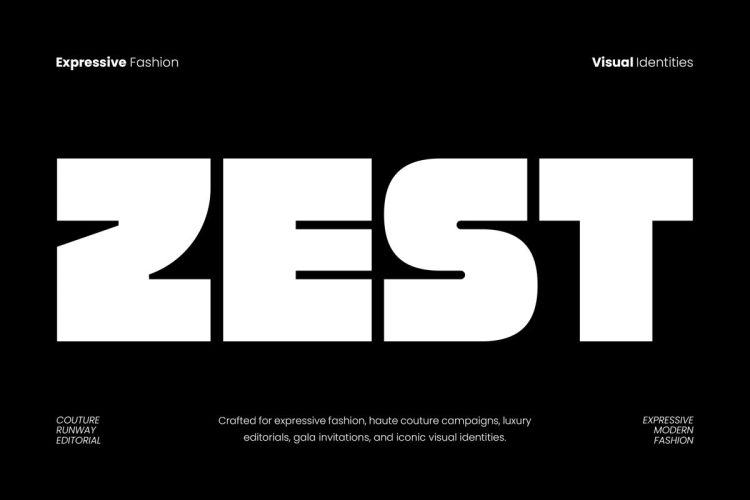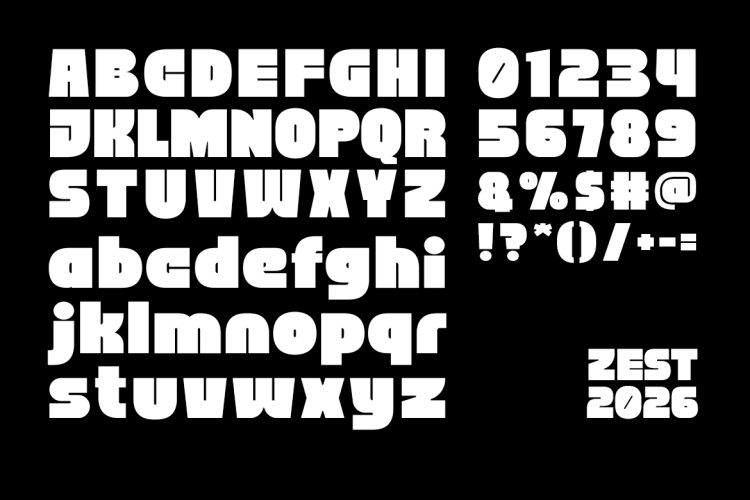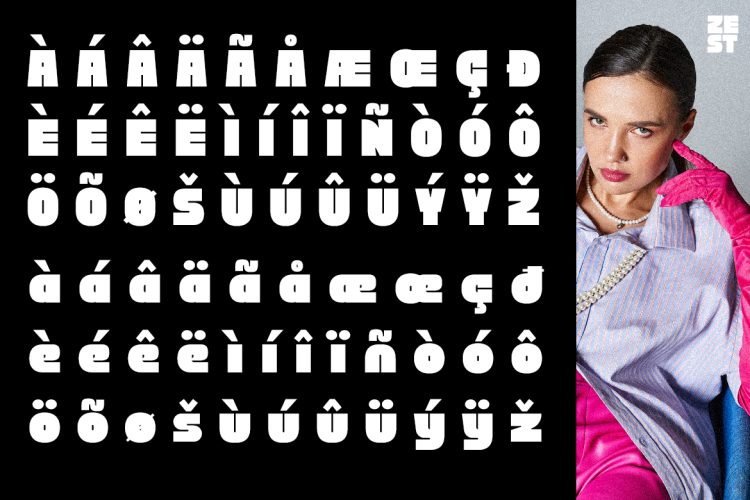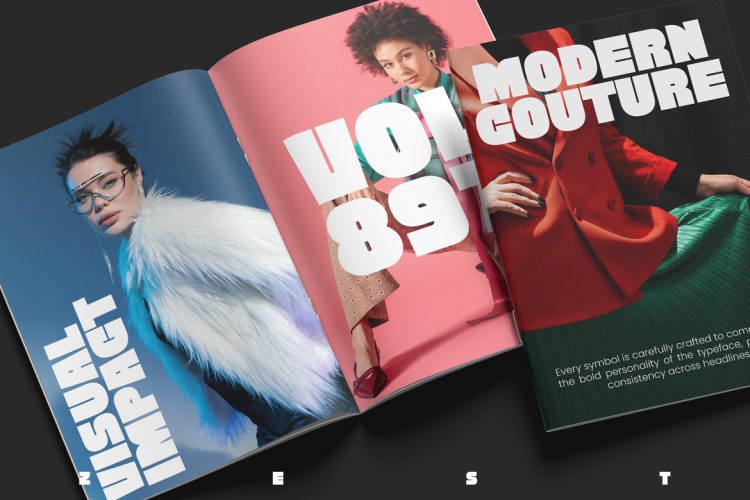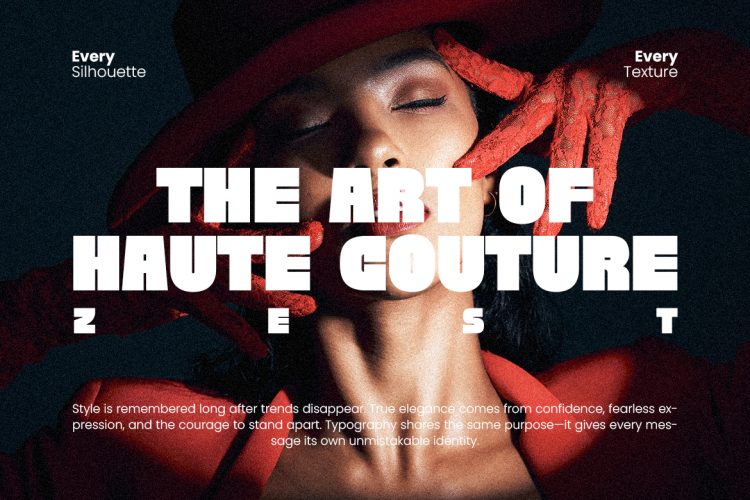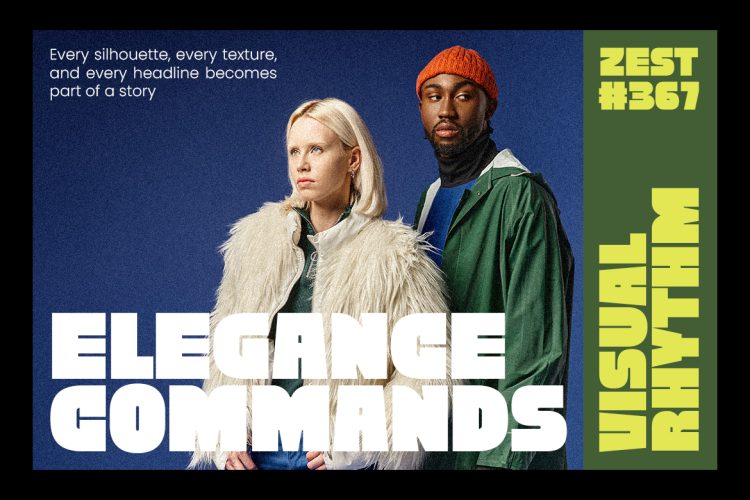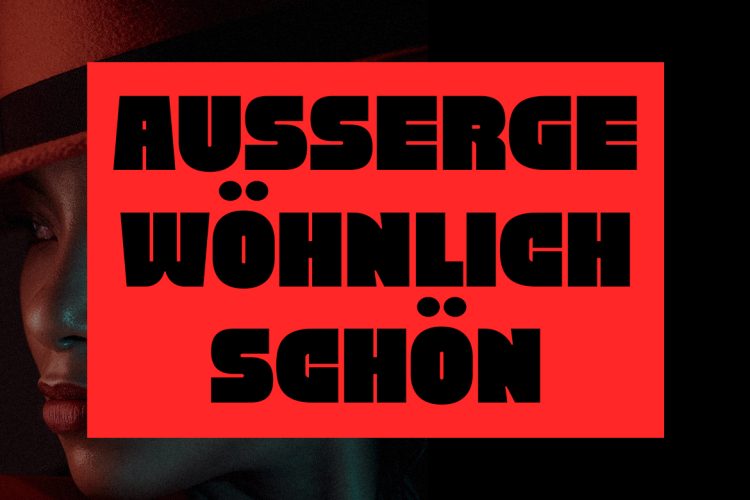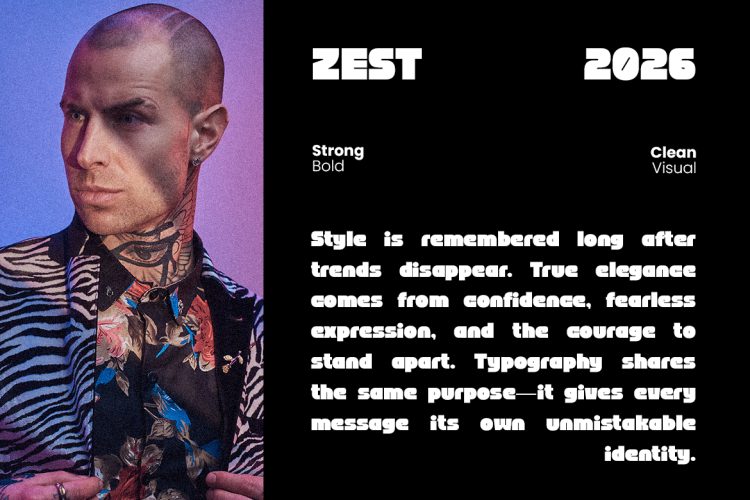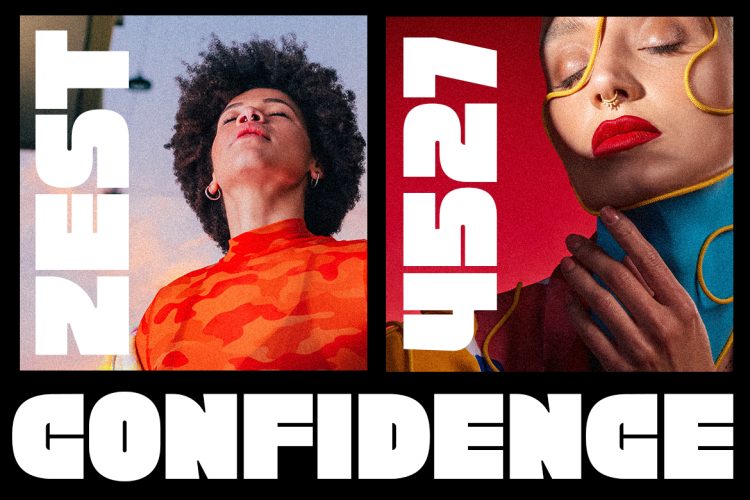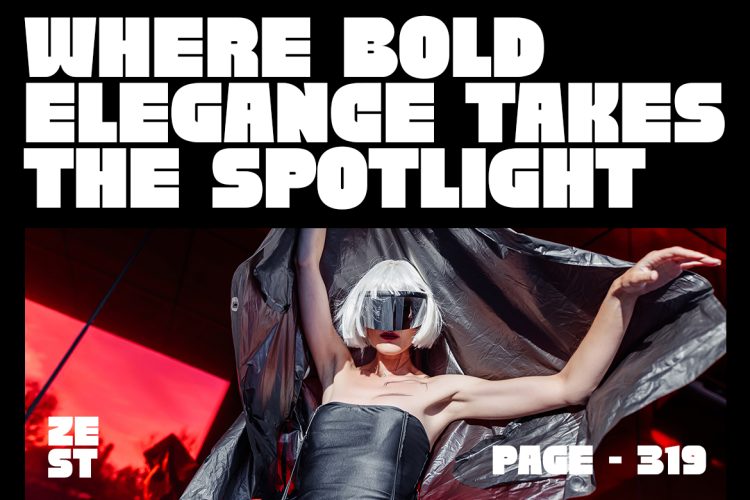
Instagram Font ZEST โ Own the Spotlight. Shape the Statement.
Instagram Font ZEST transforms bold typography into a striking visual experience with oversized geometric letterforms and a confident editorial style. Moreover, its clean construction delivers a modern appearance, while its strong proportions give every headline exceptional impact. Instead of following ordinary display fonts, ZEST introduces a fresh visual rhythm that immediately attracts attention. As a result, your branding feels stronger, while your layouts become cleaner and more memorable. In addition, the font balances bold aesthetics with excellent readability across both print and digital media. Even better, it includes Multilingual Support for 67 languages, so you can build a consistent identity for audiences around the world.
Built for Modern Creative Brands
Instagram Font ZEST helps designers create visuals that stand out with confidence. Not only does it strengthen large headlines, but it also gives every layout a refined editorial character. Whether you design fashion campaigns, magazine covers, beauty branding, creative portfolios, product packaging, posters, website banners, or Instagram content, ZEST delivers a powerful presence. Meanwhile, its balanced spacing keeps every composition clean, while its bold structure pairs naturally with photography and minimalist layouts. Furthermore, the geometric forms create a strong visual hierarchy. Consequently, your projects look more professional, more stylish, and easier to remember.
Instagram Font ZEST Perfect For
- Fashion branding
- Editorial magazines
- Instagram campaigns
- Beauty promotions
- Posters and billboards
- Product packaging
- Website hero banners
- Creative portfolios
Create Headlines That Get Noticed
If you want typography that captures attention instantly, Instagram Font ZEST is ready to perform. Furthermore, every character adds confidence to your message. At the same time, the structured design keeps every headline polished and balanced. Therefore, your audience notices your content faster and remembers it longer. Finally, choose ZEST today, elevate your visual identity, and let every headline take center stage.